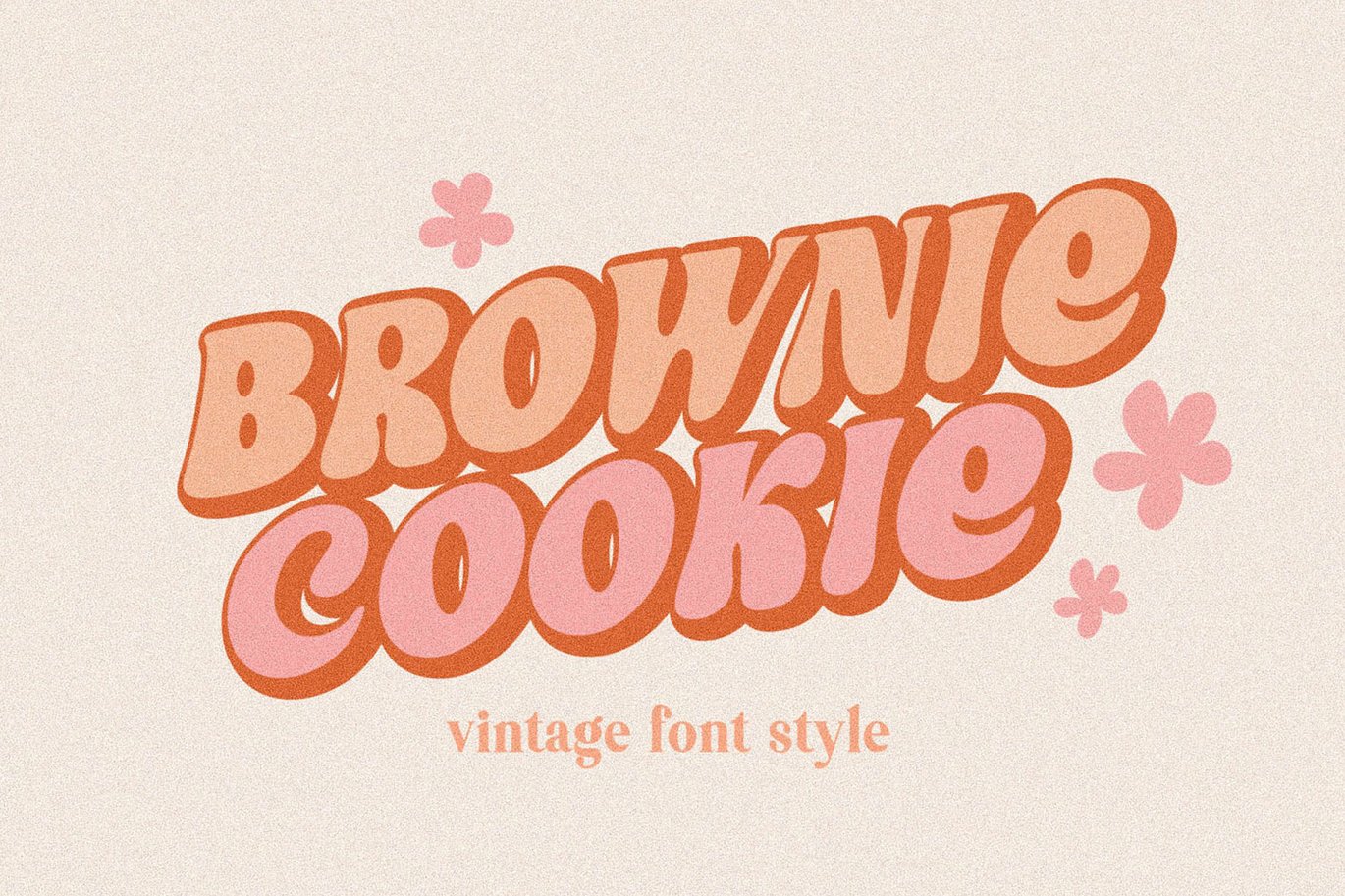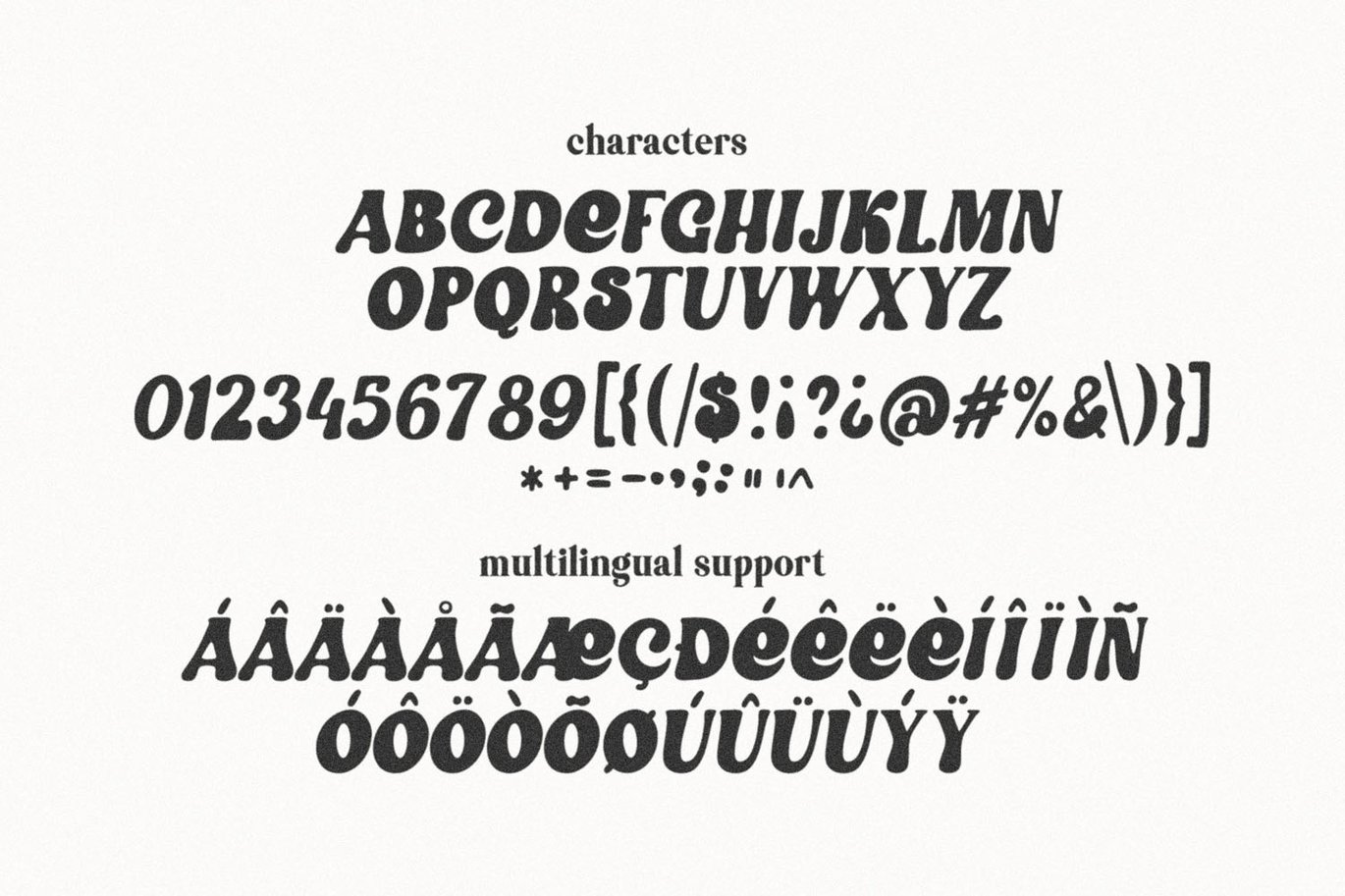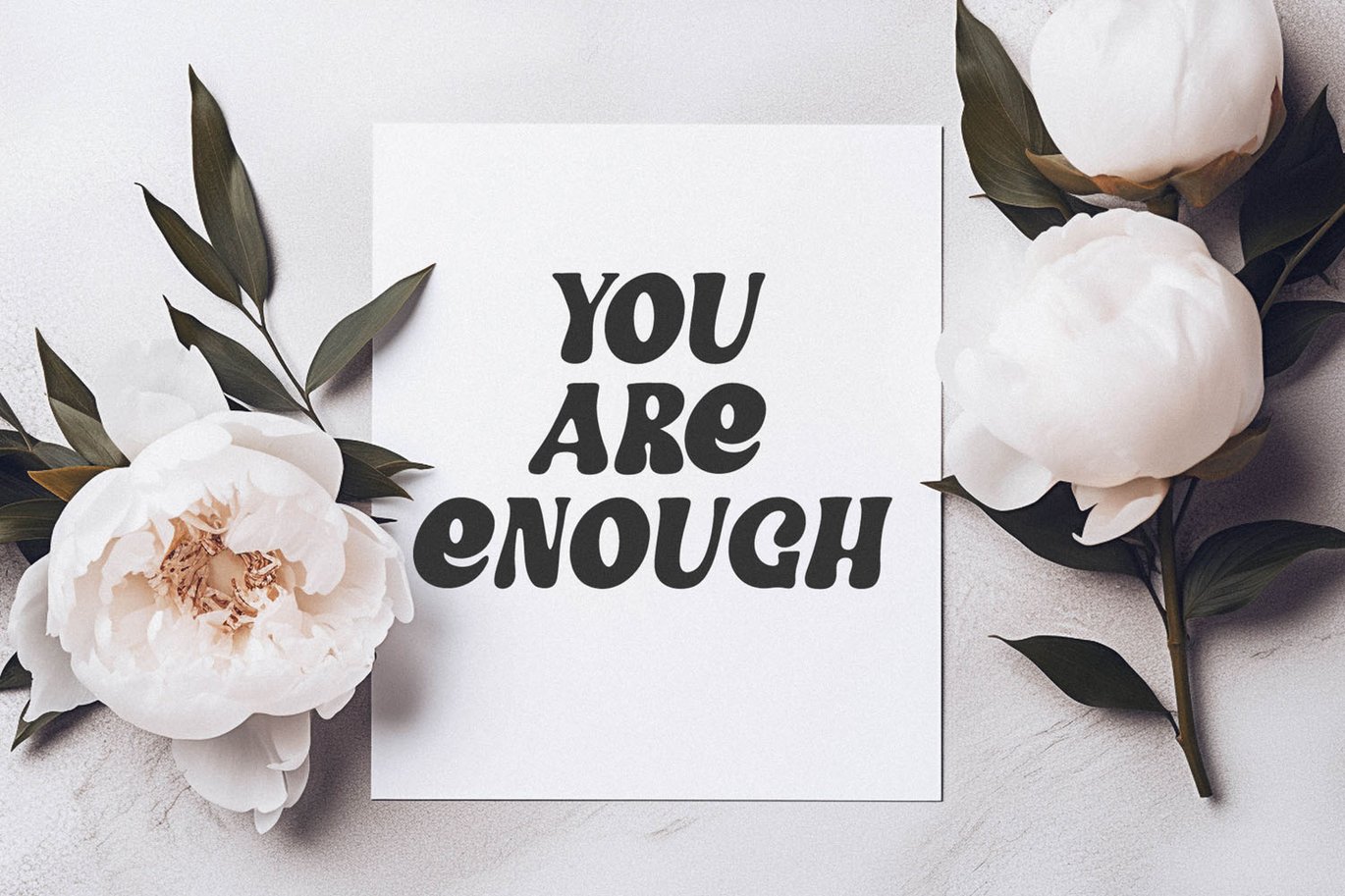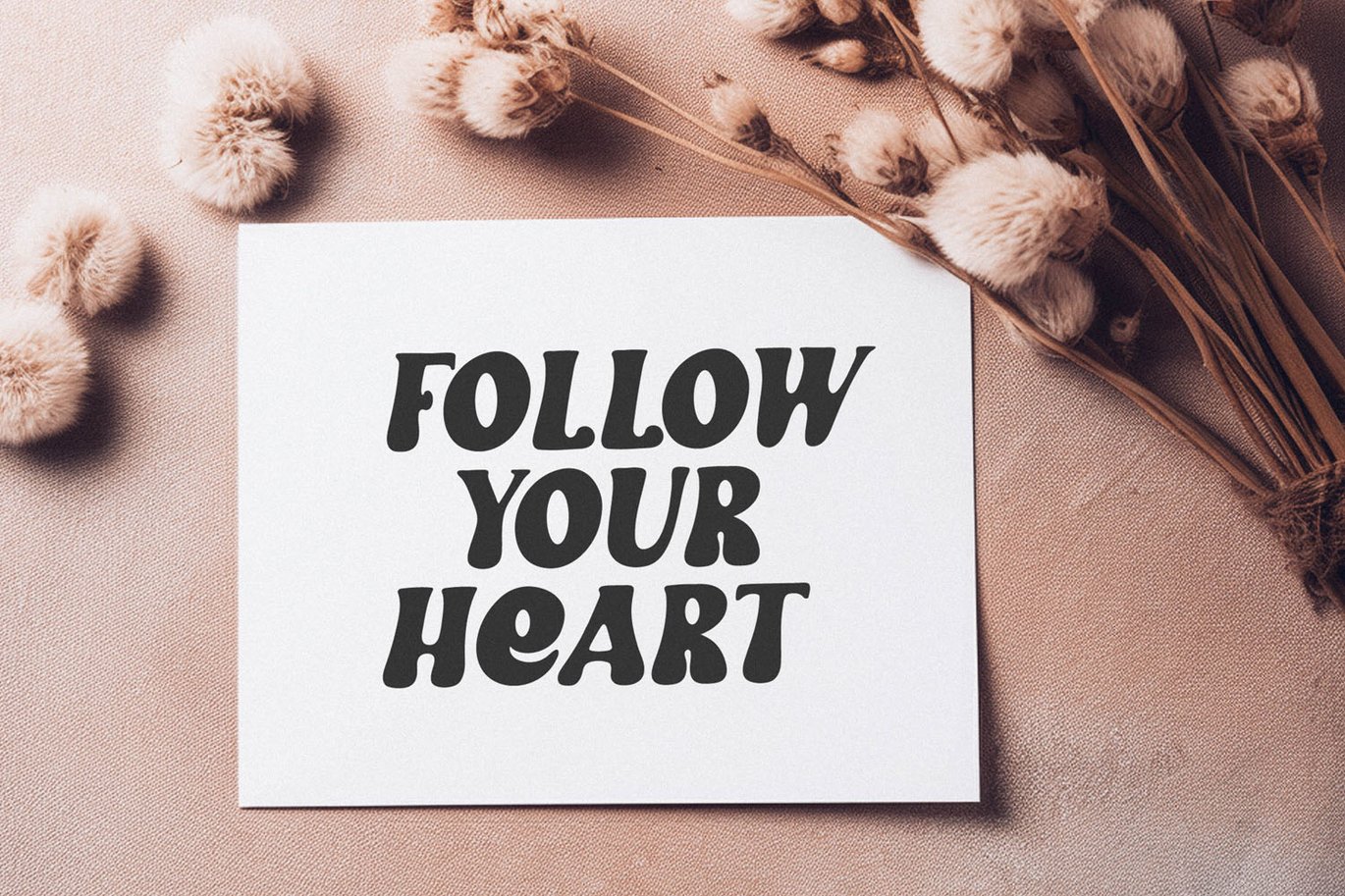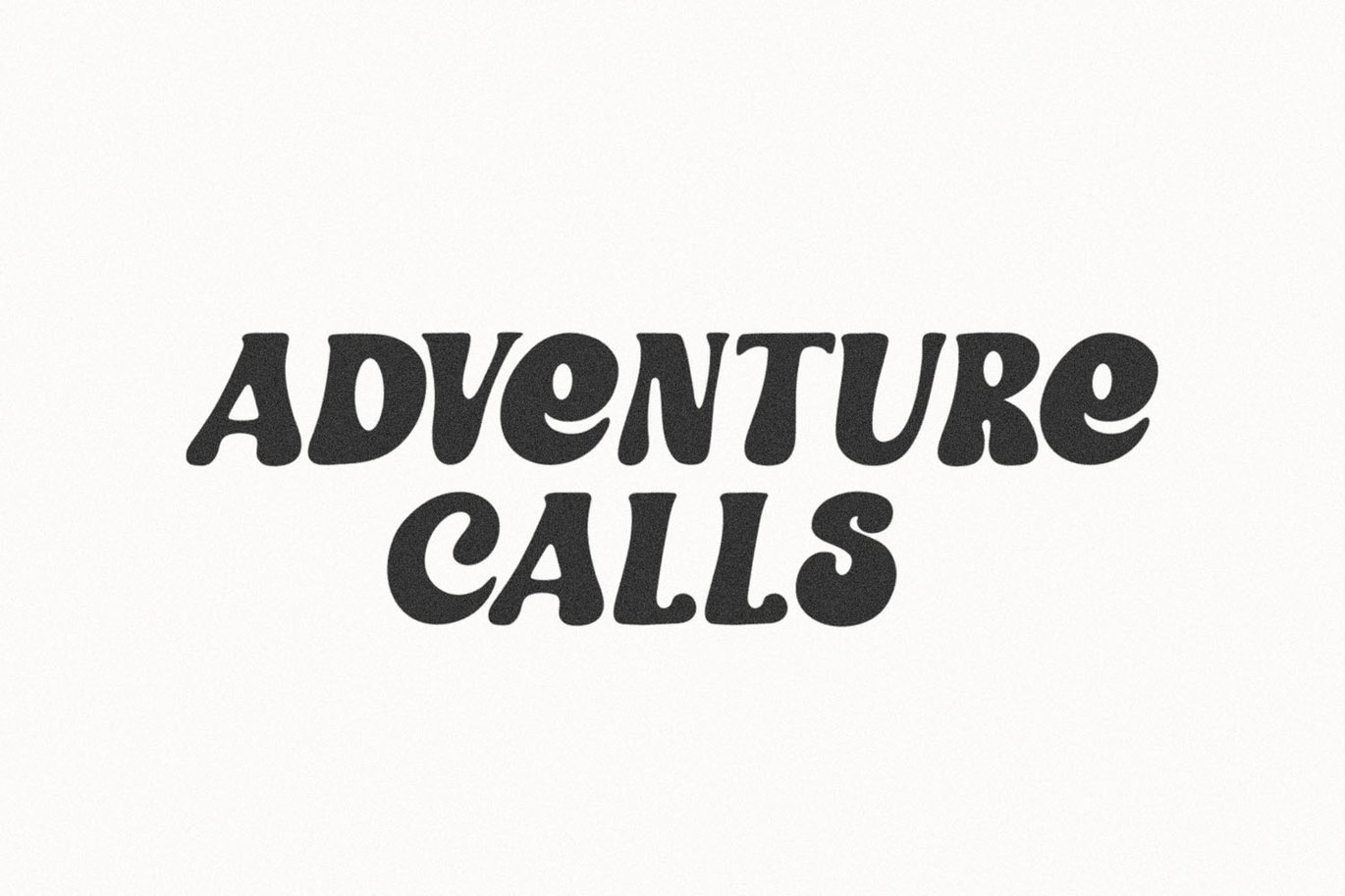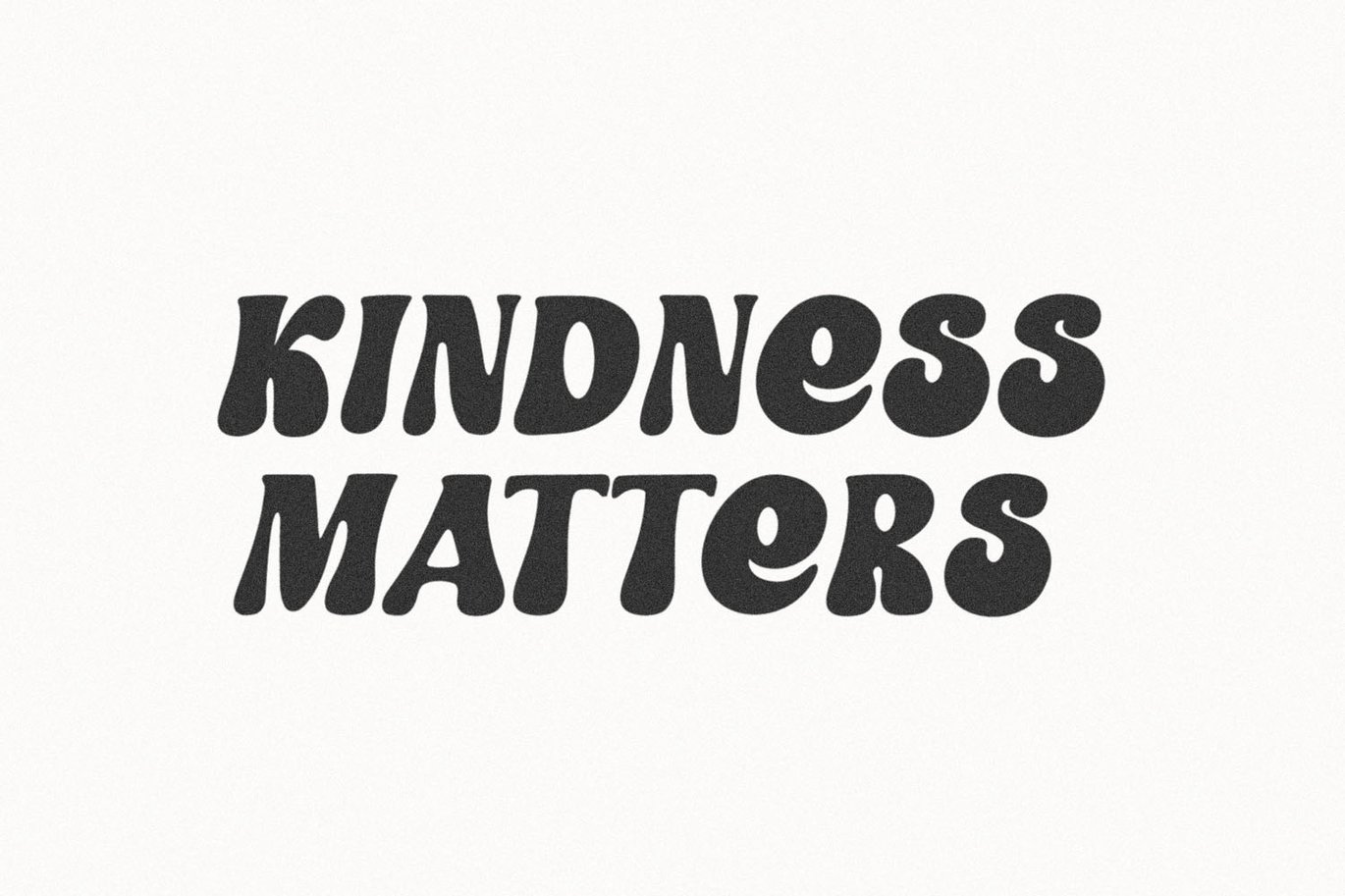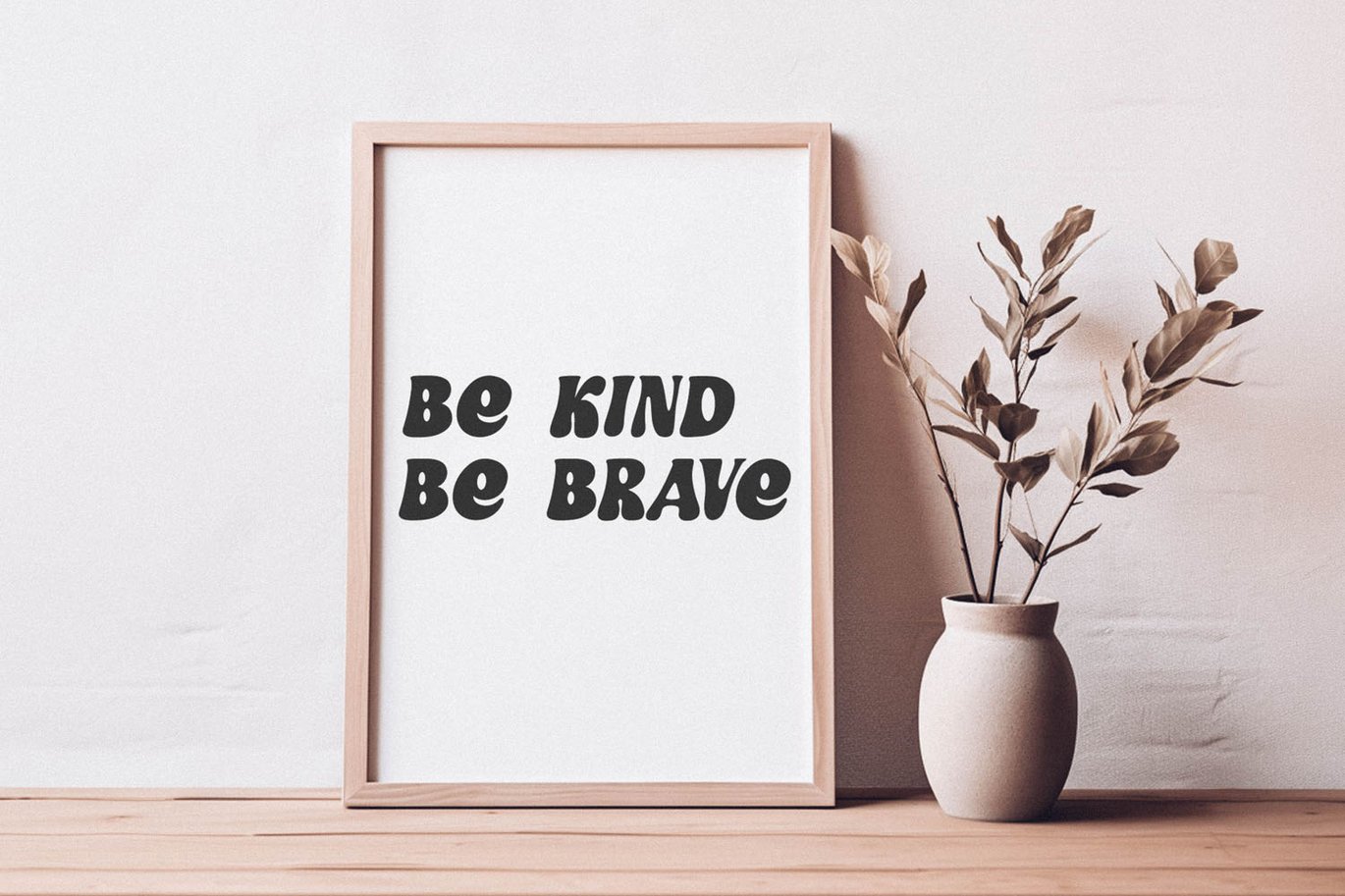
Brownie Cookie Groovy Font
Brownie Cookie – a groovy handwritten font. Perfect to create stickers, quotes, prints, cricut projects, sublimation designs and svg files.